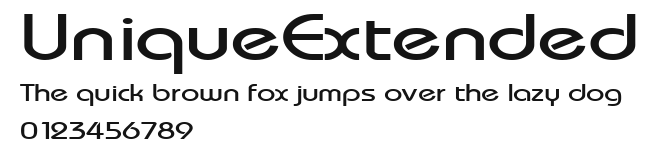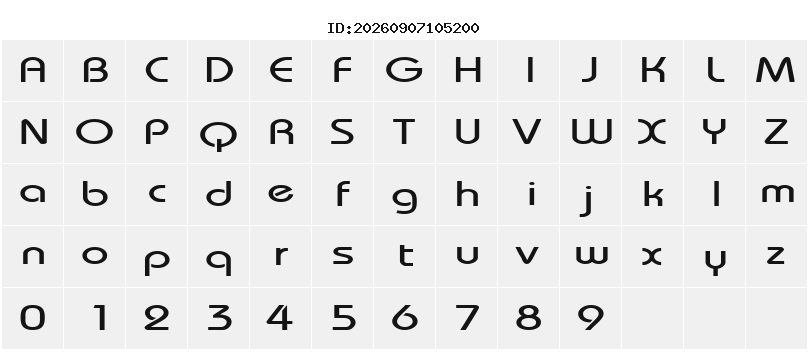
• Font Name: UniqueExtended
• Full Font Name: UniqueExtended
About UniqueExtended.ttf
UniqueExtended.ttf is a modern, elegant sans-serif font designed for ultimate readability and visual harmony. Perfect for branding, headlines, web design, and print materials.